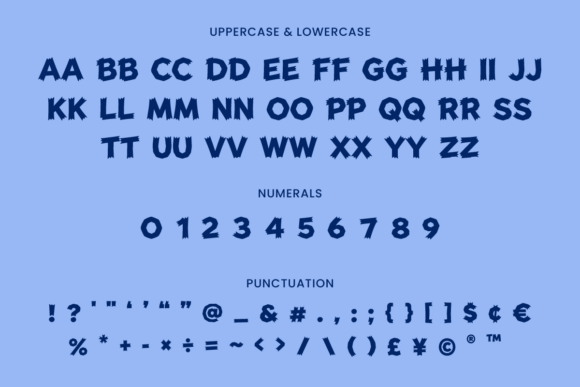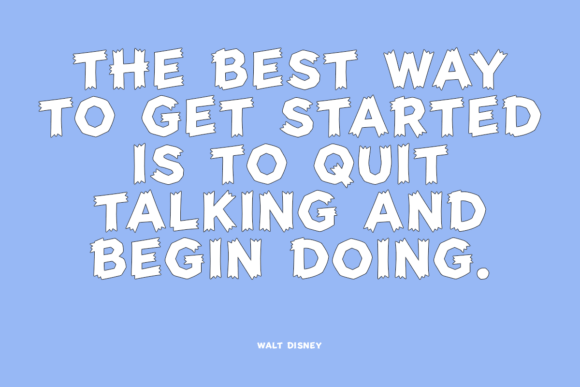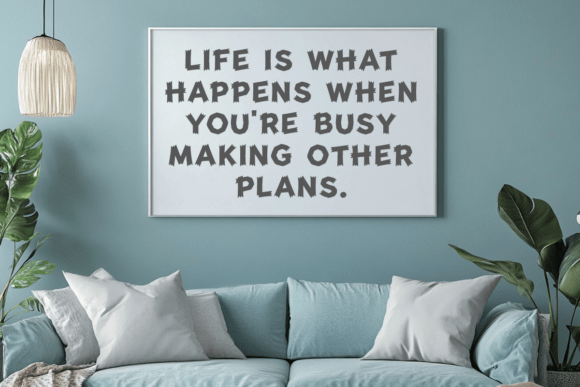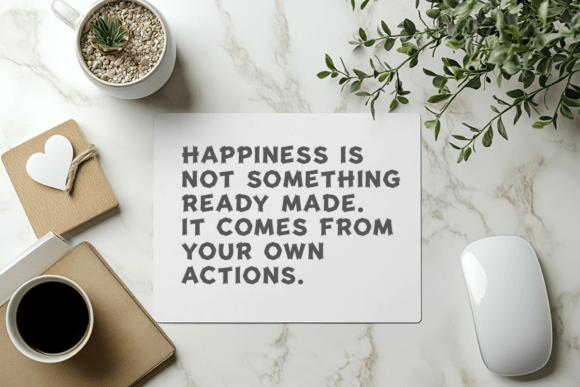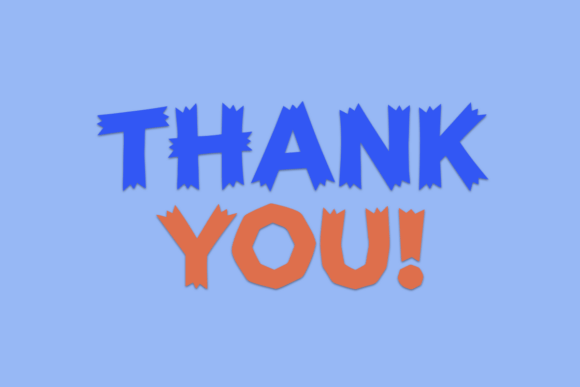
Unleashing the Power of the Jagged Action Font
Have you ever stared at a blank canvas, feeling the urge to create something bold and unapologetic? For designers, this moment is a call to arms, a chance to break free from the ordinary and unleash their true potential. And that’s exactly what the Jagged Action Font is all about – unleashing raw energy and intensity onto the page.
This high-quality typeface is not for the faint of heart. With its sharp edges, fractured lines, and unapologetic energy, the Jagged Action Font is designed to capture the attention of your audience, making it a valuable design resource for any creative project. Whether you’re working on a poster, branding, or digital media, this font is sure to make a statement. And the best part? It’s available for free download, making it a transparent background for your creativity to shine through.
Key Features of Jagged Action Font
- High-quality font design suitable for creative projects requiring a bold, edgy look.
- Features a unique, hand-drawn style with jagged edges, adding a touch of raw energy to any design project.
- Perfect for use in digital art, graphic design, and other creative pursuits where a bold, action-packed font is desired.
Honest Review: Jagged Action Font
I recently had the chance to work with the Jagged Action Font, and I must say it’s been a wild ride. As a designer, I’m always on the lookout for high-quality design resources that can elevate my creative projects. And let me tell you, this font delivers.
Here’s what works well: ✨ The font is incredibly versatile, with a bold and edgy aesthetic that’s perfect for anything from gaming websites to action-packed movie posters. The lines are crisp and clean, and the transparent background option makes it easy to layer over other design elements.
Of course, no font is perfect, and I did encounter a few limitations. ⚠️ For one, the font can be a bit too bold at times, which can make it difficult to read in certain contexts. Additionally, the character set is a bit limited, which may not be suitable for projects that require a wide range of characters.
Overall, I’d say the Jagged Action Font is a great addition to any designer’s toolkit. With its high-quality design and versatility, it’s perfect for a wide range of creative projects. Just be aware of the potential limitations, and you’ll be golden.
Common Use Cases for Jagged Action Font
The Jagged Action Font is perfect for use in a variety of creative projects, including logos, posters, flyers, and social media graphics. It’s also a great resource for designers who want to add a touch of edginess to their designs. With its free download option, you can start using the font right away and see the difference it can make in your designs.